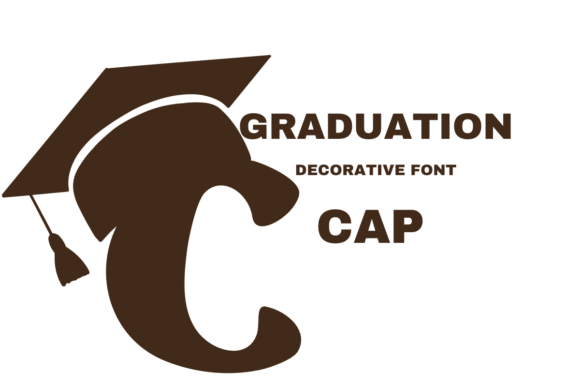
For those who cherish the art of handwriting, the Graduation Cap Font is a decorative delight. This charming font is perfect for taking notes, writing a diary, or making heartfelt greeting cards. Its playful flair adds a personal touch to any design, making it a valuable asset for designers who want to stand out from the crowd.
Whether you’re creating banners, content, or social media posts, the Graduation Cap Font is a versatile tool that can elevate your designs and make them truly special.
Graduation Cap Font Key Features
- Font Family: Graduation Cap Font is a custom-designed font family, available in a range of styles and weights.
- Size: The font family includes a range of font sizes, from 8pt to 72pt, making it suitable for various applications, including signage, digital displays, and print materials.
- Resolution: Optimized for high-resolution displays, the font family supports resolutions up to 300 DPI (dots per inch), ensuring clear and crisp text at various zoom levels.
- Unique Characteristics: The Graduation Cap Font features a unique, celebratory design, with bold lines and curved shapes that evoke a sense of achievement and accomplishment.
- Language Support: The font family supports a wide range of languages, including Latin, Cyrillic, and Greek scripts, making it a versatile choice for international applications.
Graduation Cap Font Review
I recently had the chance to play around with the Graduation Cap Font, and I have to say it’s a unique and fun addition to any design project. ✨ One of the things I like most about this font is its playful, celebratory vibe. It’s perfect for projects that need a touch of whimsy and nostalgia.
Another thing that stands out about the Graduation Cap Font is its versatility. ✨ It works well for both digital and print projects, and can be used in a variety of contexts, from social media graphics to graduation invitations.
- ⚠️ Limited character set: The font is primarily designed for displaying a few key phrases, such as “Congratulations” or “Graduation”. It may not be suitable for longer blocks of text.
- ⚠️ Limited font sizes: The font may not be as legible at very large or very small font sizes.
- ⚠️ Limited customizability: While the font is highly stylized, it may not be possible to customize it as much as you’d like.
Overall, I think the Graduation Cap Font is a great addition to any design project that needs a touch of personality. While it has some limitations, it’s a fun and unique font that’s sure to grab attention. Just be sure to use it in the right context, and don’t be afraid to get creative with it!
Use the Graduation Cap Font for graduation announcements, invitations, and certificates.
Combine the font with other design elements, such as confetti and balloons, to create a festive atmosphere.
Graduation announcements
Invitations
Certificates
Yearbook spreads
Alternatives to Graduation Cap Font
Graduation Cap Font is a popular font used for various graduation-related designs. However, there are other alternatives that designers can consider. Here are a few options:
1. Lobster
Lobster is a modern script font that is perfect for creating a sense of elegance and sophistication. It’s ideal for use in wedding invitations, event invitations, and other formal designs. Compared to Graduation Cap Font, Lobster has a more refined and luxurious feel, making it a great choice for high-end designs.
Carolyna Pro is a beautiful script font that is perfect for creating a sense of drama and flair. It’s ideal for use in event invitations, wedding invitations, and other designs that require a touch of elegance. Compared to Graduation Cap Font, Carolyna Pro has a more dynamic and expressive feel, making it a great choice for designs that need to make a statement.